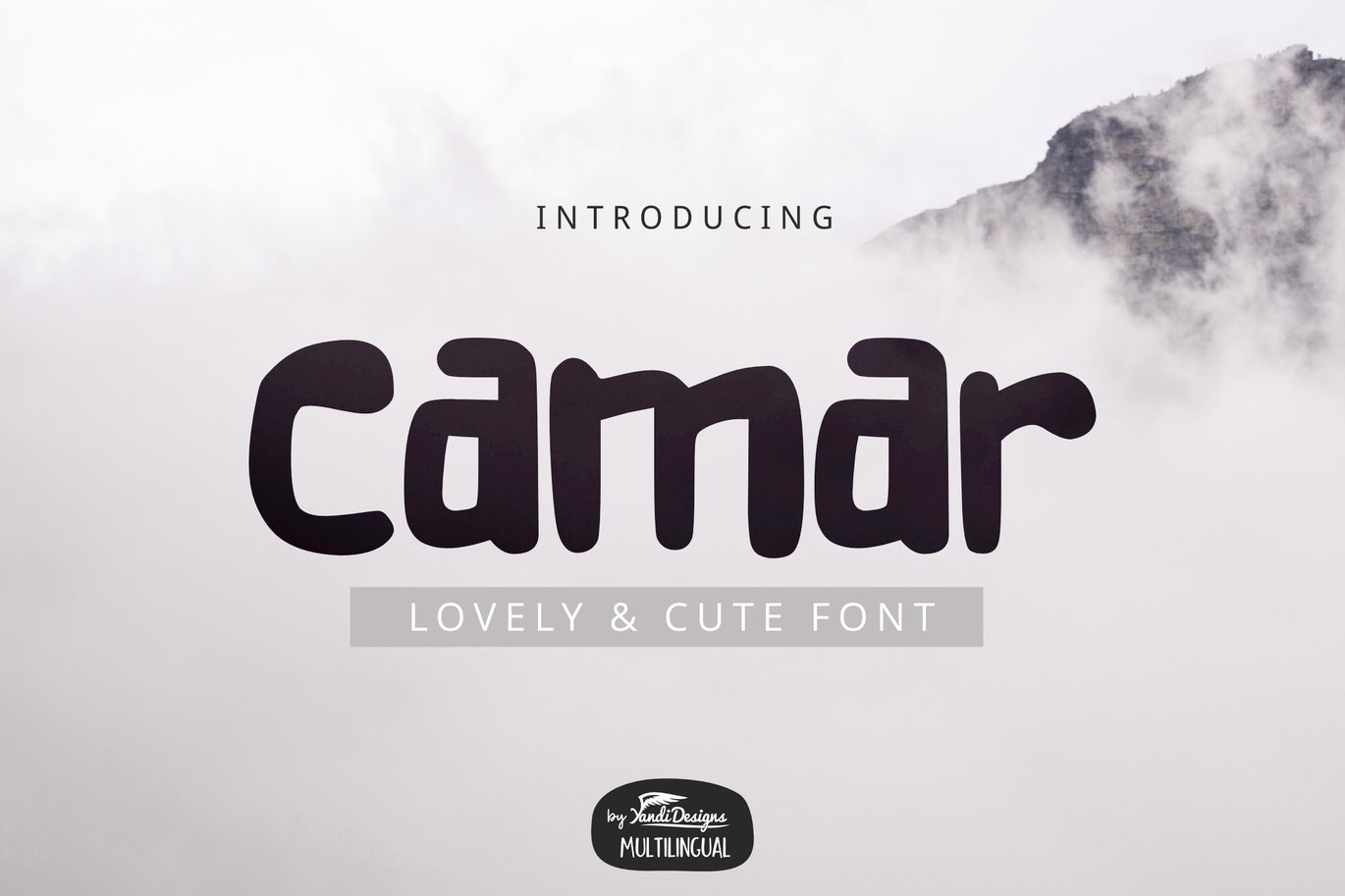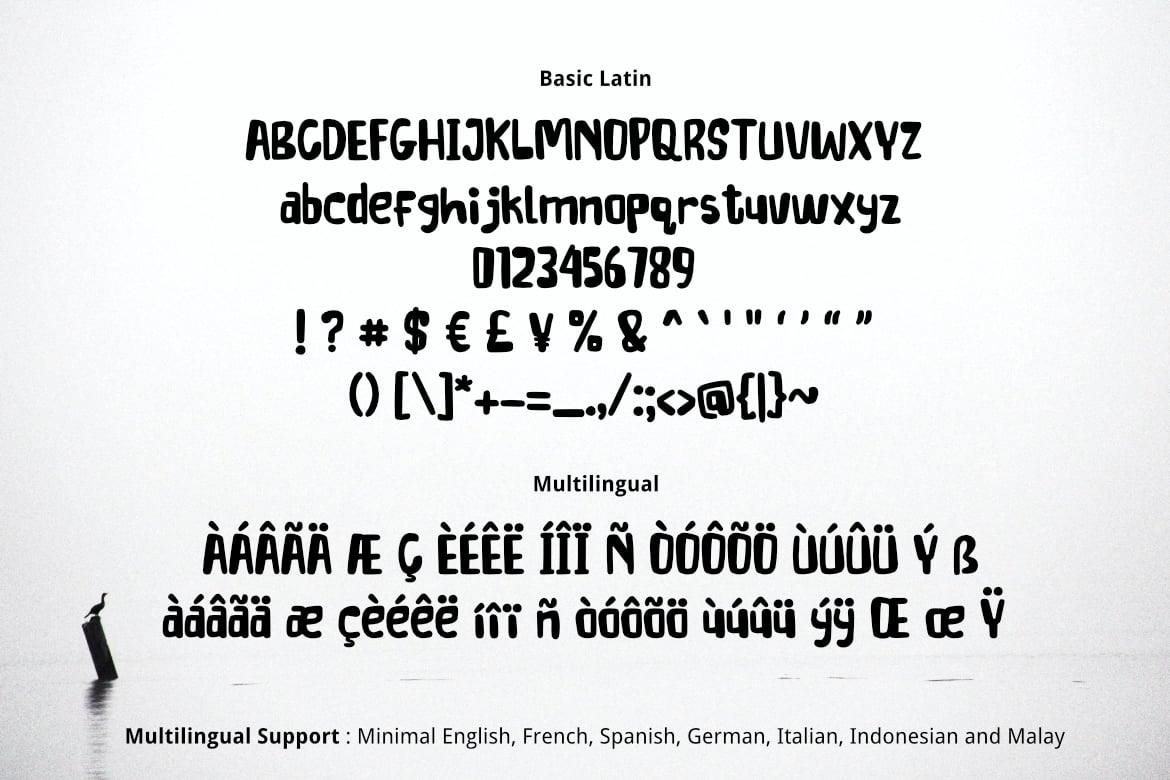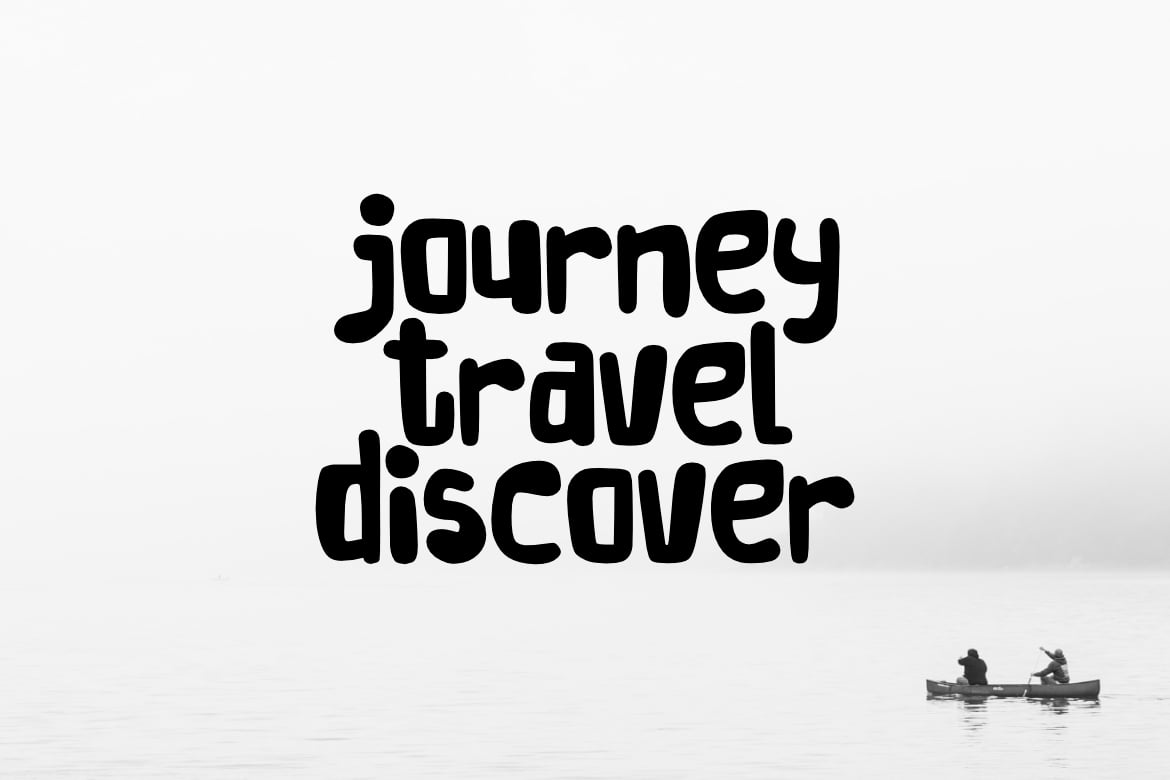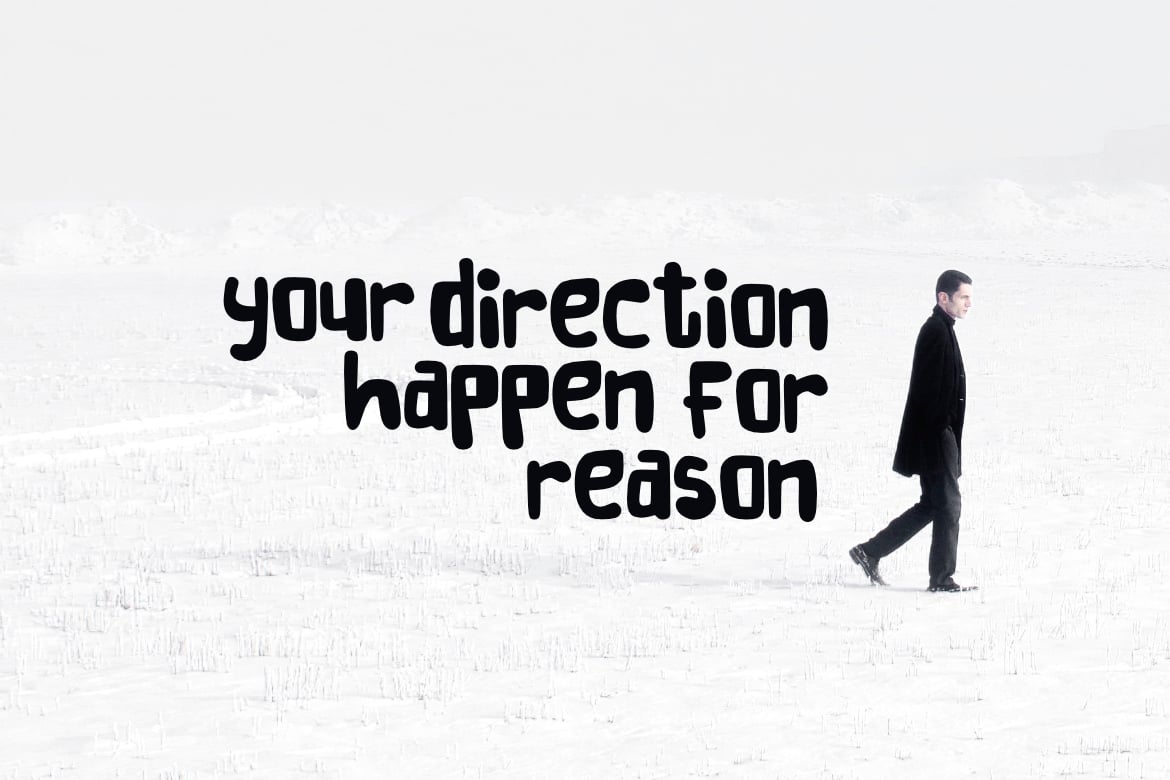
Camar Font
Camar is simple cute multipurpose handmade font, suitable for many project children book, quotes, logo , heading , title etc.
Basic Latin (Standard English character , number, symbol)
Multilingual Support  (minimal English, French, Spanish, German, Italian, Indonesian, Malay)